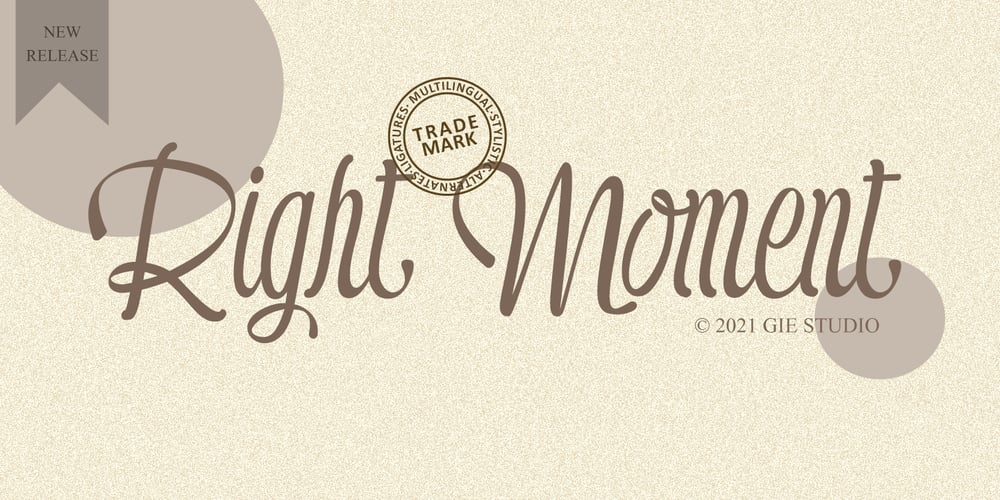
Right Moment
Right Moment font
Right Moment Font Family was designed by Gie Studio and published by Gie Studio. Right Moment contains 1 styles and family package options. Are you planning to do an amazing piece of work to make lots of people smile happily while taking your hat off every time?If so, this is the right time to give your work a little touch with a sincere and elegant writing.Introducing Right Moment- A Elegant Calligraphy FontRight Moment is a romantic and sweet calligraphy typeface with characters that dance along the baseline. It will add a luxury spark to any design project that you wish to create! This font will be very interesting if you use it for all your design purposes such as; logos, wedding invitation, business cards, printed quotes, invitations of all sorts, cards, packaging, and your website or social media branding.Right Moment includes Multilingual Options to make your branding globally acceptable.Features: Standard Ligatures Stylistic Sets Multilingual Support PUA Encoded Numerals and Punctuation Thank you for your visit and downloading premium fonts from Gie Studio